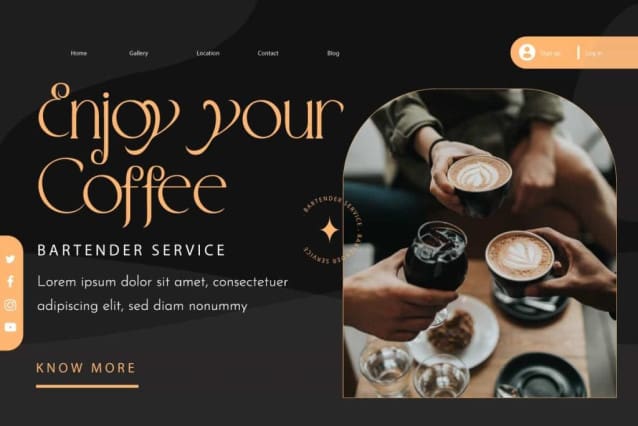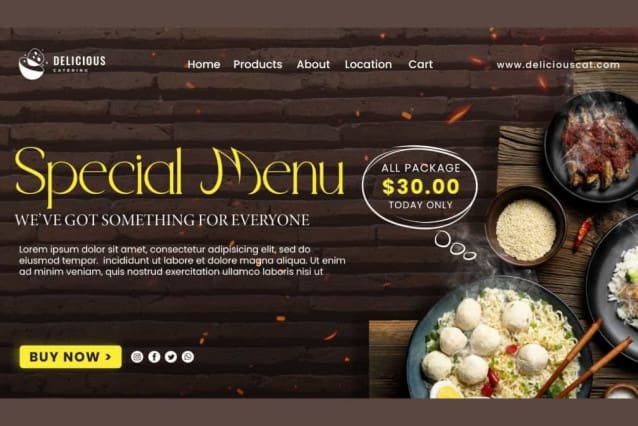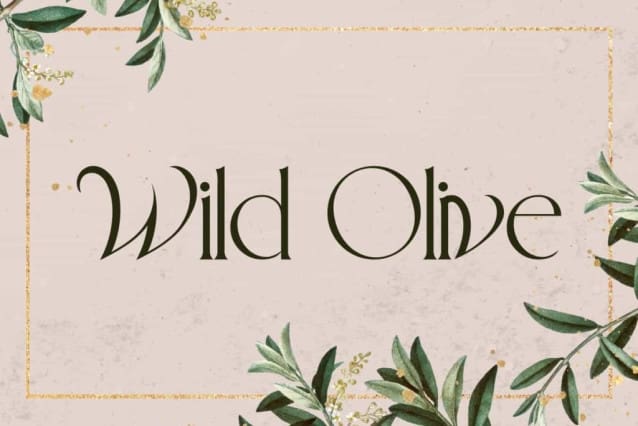
Wild Olive Font
Wild Olive Font is a modern sophisticated serif display font that combines two different style in a font family. This font has sleek characters with a beautiful lines to give an elegant looks. It will suits many designs, such as billboard, cover, custom design, gift box, invitation, label, poster, product packaging, quote, screen printing, signage, stationery, title, website, and more!
Wild Olive Font includes full set of Uppercase and Lowercase Basic Characters, Numerals, Punctuation, and Symbol. This font is perfect for you who looking for fancy font, so it will be suitable for many industries, such as accessories and jewelry, advertising, beauty product, craft, event or wedding organizer, fashion, florist, home furniture, perfume, resort, restaurant, etc.